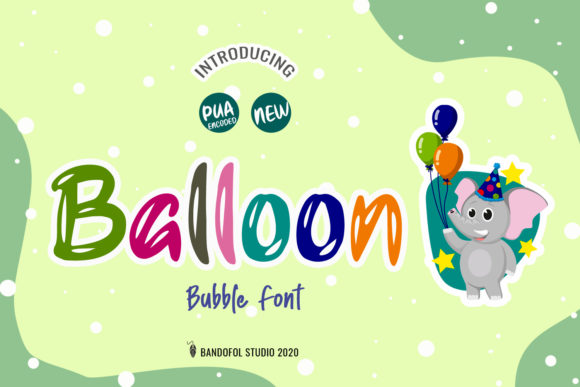
Introducing the Ballon Font, a delightful and captivating display font designed for the young and young at heart. Created by the talented team at Bandofol Studio, this playful bubble font is guaranteed to bring a smile to your face and add a touch of whimsy to any project. Get ready to embark on a creative journey as we explore the exciting features and endless possibilities that this font offers.
When it comes to fonts for kids, the Ballon Font stands out from the crowd. Its unique design instantly captures the essence of childhood, evoking a sense of joy, wonder, and imagination. Whether you're working on a book cover, film title, or bag inscription, this font will infuse your project with a relaxed and happy feeling that is sure to resonate with both children and adults alike.
One of the standout features of the Ballon Font is its versatility. It effortlessly adapts to various design styles and themes, making it a perfect choice for a wide range of projects. Looking to create eye-catching food designs that will make mouths water? The Ballon Font has got you covered. Want to design stunning posters that grab attention and leave a lasting impression? Look no further. Need to add a touch of inspiration to your quotes or make your t-shirts pop? This font does it all with flair.
But the Ballon Font doesn't stop there. It's not just about aesthetics; it's about functionality too. With its carefully crafted letterforms and smooth curves, this font ensures readability without compromising on style. You can rest assured that your message will be conveyed effortlessly, even in the most intricate designs.
As we dive deeper into the world of the Ballon Font, we discover its true power lies in its ability to spark imagination and ignite creativity. Let your imagination run wild as you explore the endless possibilities this font offers. Watch as your designs come to life, capturing the hearts and minds of your audience.
In conclusion, the Ballon Font is the ultimate choice for anyone looking to add a touch of whimsy and playfulness to their projects. Its charming bubble design, versatility, and ability to evoke joy make it the perfect companion for book covers, film titles, bag inscriptions, food designs, posters, quotes, t-shirts, and so much more. Step into a world of imagination and let the Ballon Font take your designs to new heights.